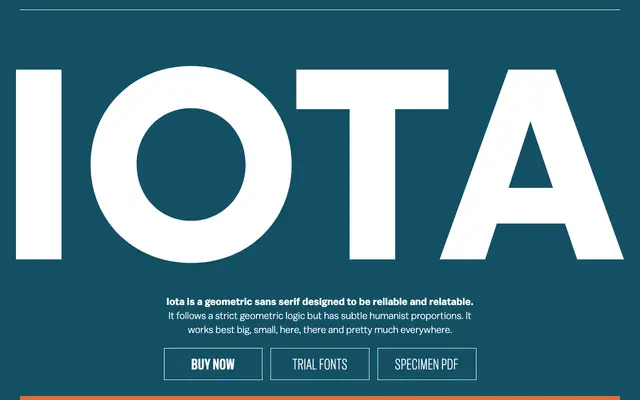
A geometric sans with humanist proportions, designed to perform reliably across a wide range of sizes and applications.
Eight weights from Thin to Ultra give Iota a broad range for both text and display work. Strict geometric construction is tempered by subtle humanist proportions, making it feel less cold than pure geometric designs. Stylistic alternates include a flat-sided M and single-story 'a', with case-sensitive forms and tabular figures rounding out a practical feature set.
Described explicitly as a geometric sans serif with subtle humanist proportions, placing it squarely in the geometric sans subcategory with a nod toward humanist influences.